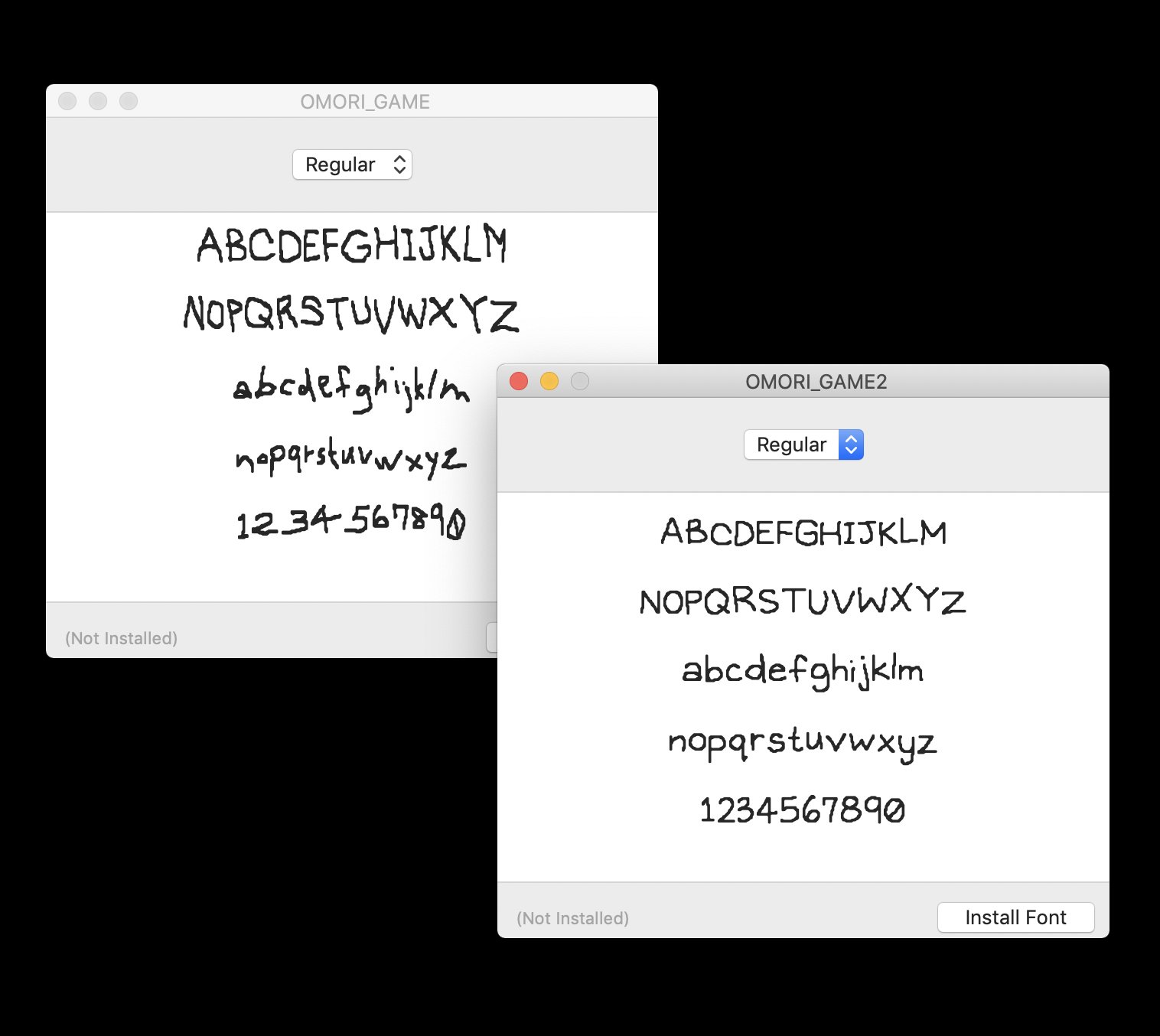
Omori Font Name
Omori Font Name - Web omori font is the handwritten typeface used in the omori game logo. Web im talking about most used ones in the game. Web main font used throughout omori. Omori_game1 or omori_game2, the names. It is a custom font designed specifically for the game by. Explore a strange world full of colorful friends and foes. Web omori is a surreal psychological horror rpg maker game. Web the name of the omori font which most looks like the lettering used in the official logo is a typeface by the name of.
Web omori font is the handwritten typeface used in the omori game logo. Web main font used throughout omori. Explore a strange world full of colorful friends and foes. It is a custom font designed specifically for the game by. Web the name of the omori font which most looks like the lettering used in the official logo is a typeface by the name of. Omori_game1 or omori_game2, the names. Web omori is a surreal psychological horror rpg maker game. Web im talking about most used ones in the game.
Omori_game1 or omori_game2, the names. Web omori font is the handwritten typeface used in the omori game logo. Web main font used throughout omori. Explore a strange world full of colorful friends and foes. Web the name of the omori font which most looks like the lettering used in the official logo is a typeface by the name of. It is a custom font designed specifically for the game by. Web im talking about most used ones in the game. Web omori is a surreal psychological horror rpg maker game.
Omori Font
Web the name of the omori font which most looks like the lettering used in the official logo is a typeface by the name of. Web main font used throughout omori. Omori_game1 or omori_game2, the names. It is a custom font designed specifically for the game by. Web omori font is the handwritten typeface used in the omori game logo.
Explore a strange world full of colorful friends and foes. Web main font used throughout omori. Web the name of the omori font which most looks like the lettering used in the official logo is a typeface by the name of. Omori_game1 or omori_game2, the names. Web omori font is the handwritten typeface used in the omori game logo.
Web omori is a surreal psychological horror rpg maker game. Web im talking about most used ones in the game. Explore a strange world full of colorful friends and foes. Omori_game1 or omori_game2, the names. Web the name of the omori font which most looks like the lettering used in the official logo is a typeface by the name of.
Omori Font
Omori_game1 or omori_game2, the names. Web the name of the omori font which most looks like the lettering used in the official logo is a typeface by the name of. It is a custom font designed specifically for the game by. Web main font used throughout omori. Explore a strange world full of colorful friends and foes.
Explore a strange world full of colorful friends and foes. Omori_game1 or omori_game2, the names. Web im talking about most used ones in the game. Web omori is a surreal psychological horror rpg maker game. Web main font used throughout omori.
Web omori font is the handwritten typeface used in the omori game logo. Explore a strange world full of colorful friends and foes. Web the name of the omori font which most looks like the lettering used in the official logo is a typeface by the name of. Web main font used throughout omori. It is a custom font designed.
Omori Font
Web main font used throughout omori. It is a custom font designed specifically for the game by. Web omori font is the handwritten typeface used in the omori game logo. Web omori is a surreal psychological horror rpg maker game. Explore a strange world full of colorful friends and foes.
Omori Font
It is a custom font designed specifically for the game by. Web the name of the omori font which most looks like the lettering used in the official logo is a typeface by the name of. Web main font used throughout omori. Web omori font is the handwritten typeface used in the omori game logo. Web omori is a surreal.
omori font download
Web omori font is the handwritten typeface used in the omori game logo. Web omori is a surreal psychological horror rpg maker game. Omori_game1 or omori_game2, the names. Explore a strange world full of colorful friends and foes. It is a custom font designed specifically for the game by.
OMORI_GAME2 Font Download Free for Desktop & Webfont
Web omori font is the handwritten typeface used in the omori game logo. Explore a strange world full of colorful friends and foes. Web omori is a surreal psychological horror rpg maker game. Omori_game1 or omori_game2, the names. Web im talking about most used ones in the game.
Explore A Strange World Full Of Colorful Friends And Foes.
Web main font used throughout omori. Web omori font is the handwritten typeface used in the omori game logo. Web the name of the omori font which most looks like the lettering used in the official logo is a typeface by the name of. Omori_game1 or omori_game2, the names.
It Is A Custom Font Designed Specifically For The Game By.
Web im talking about most used ones in the game. Web omori is a surreal psychological horror rpg maker game.